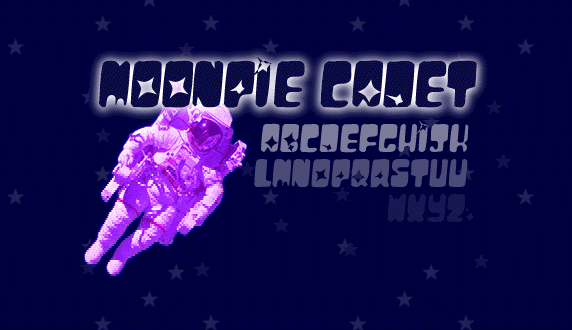
Moonpie Cadet
About Moonpie Cadet
Today I was running short on good font ideas and I always wanted to re-do this ugly font I made a couple years back. This original font was totally nasty. This one can\’t be much better, but its smoother. I also added some lower case and numbers. If you…